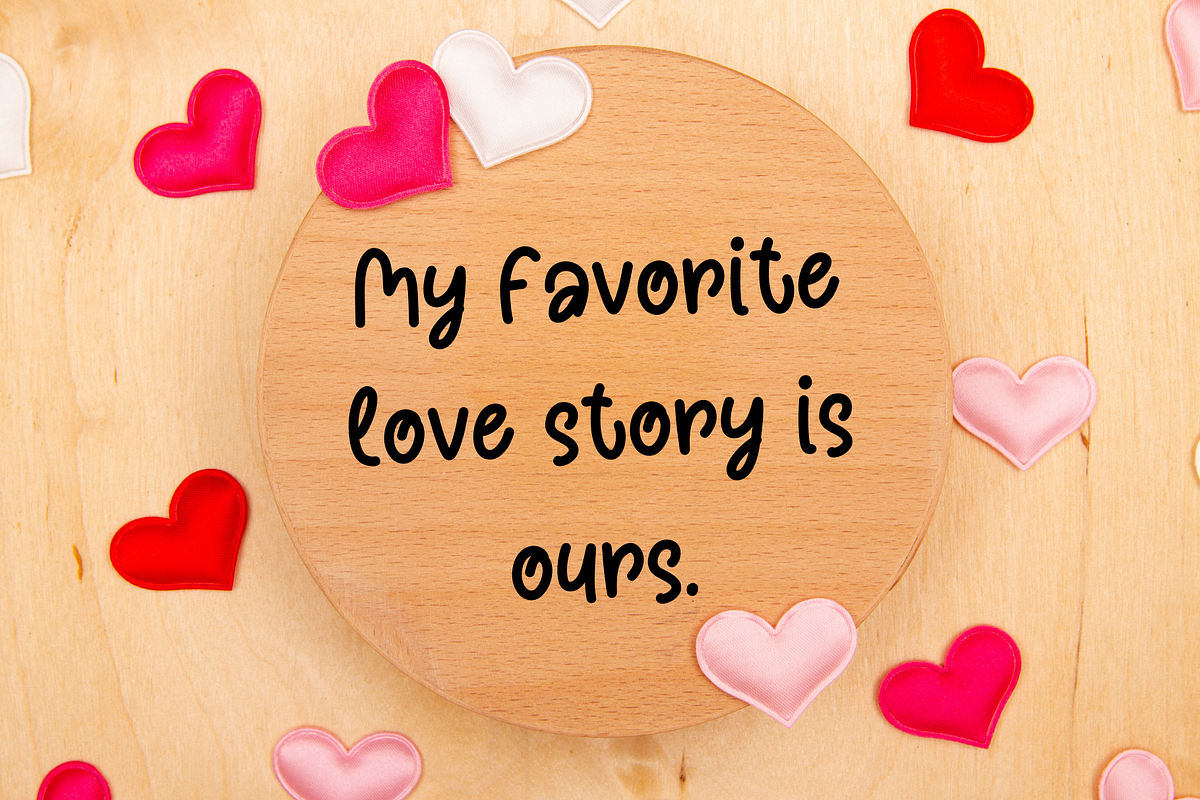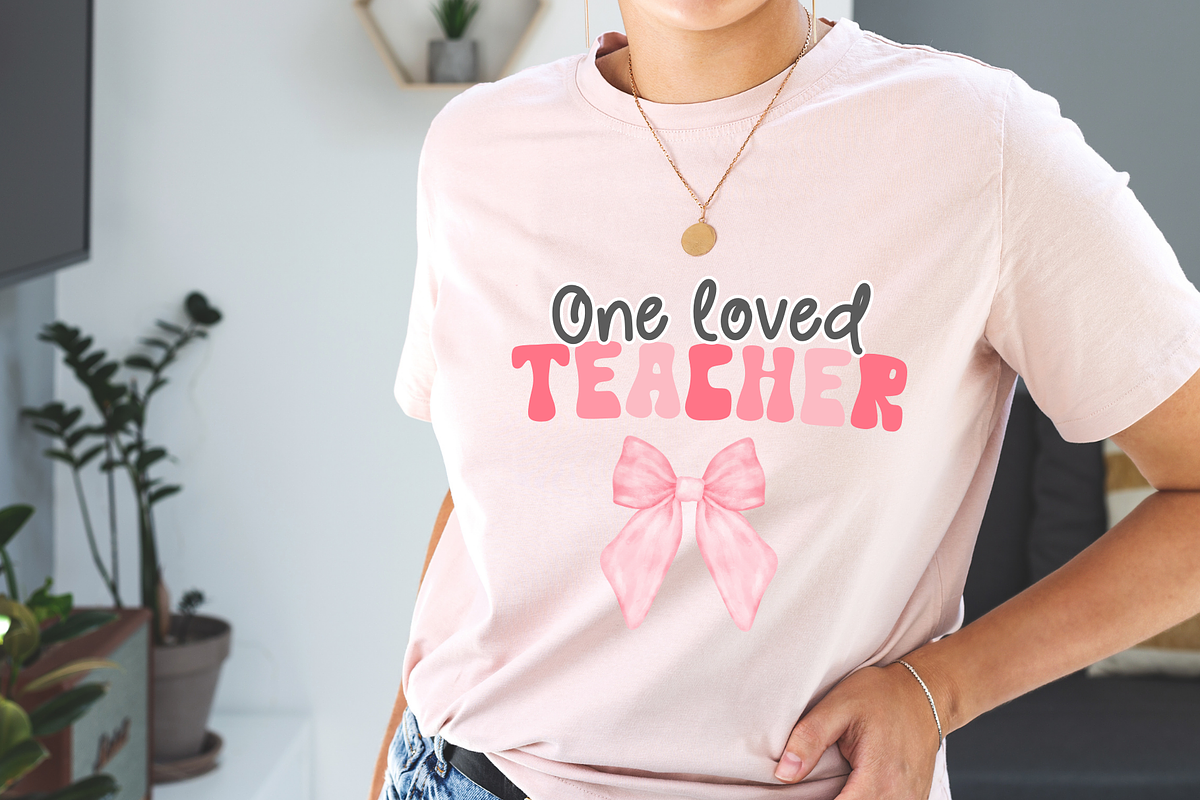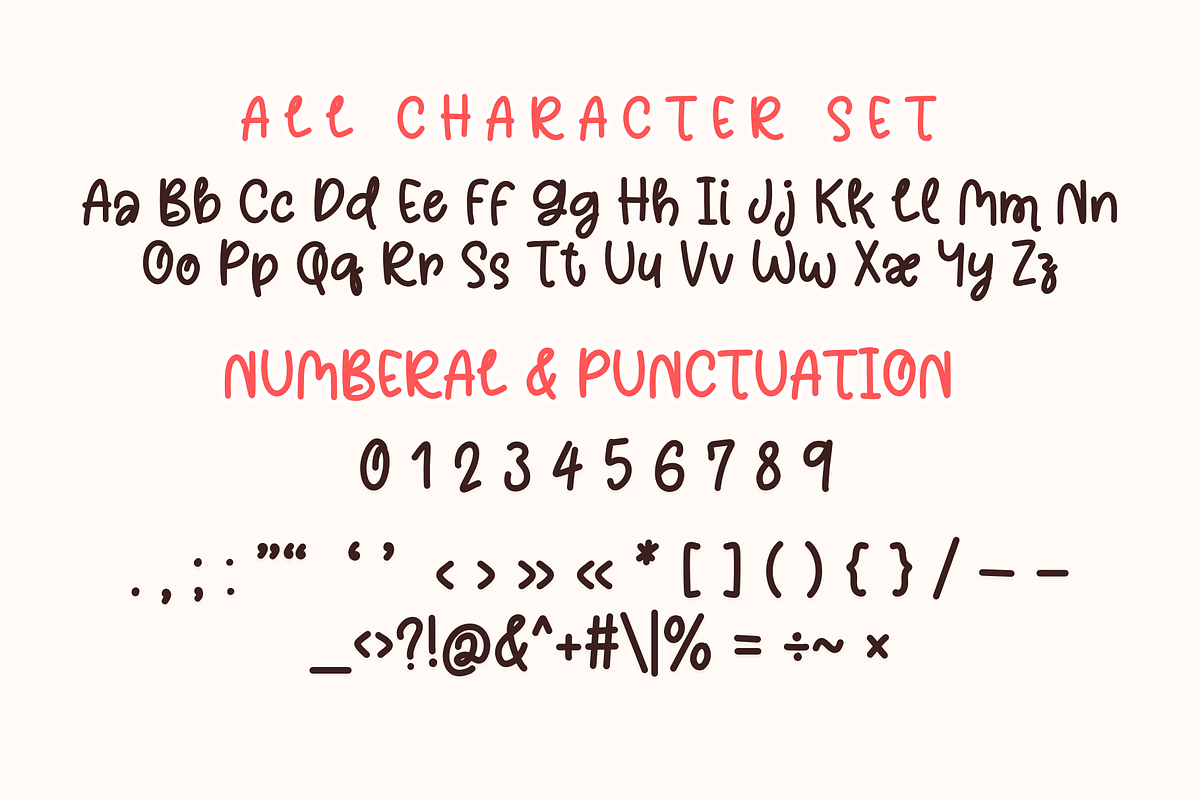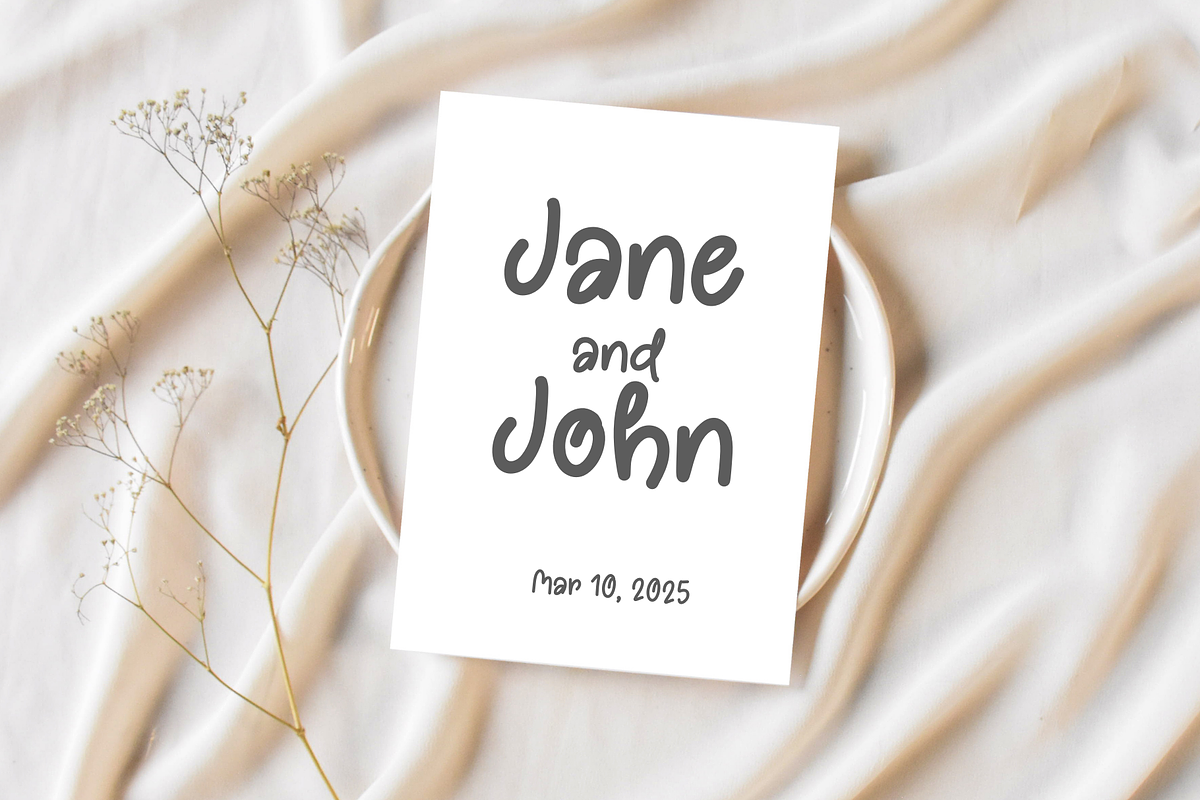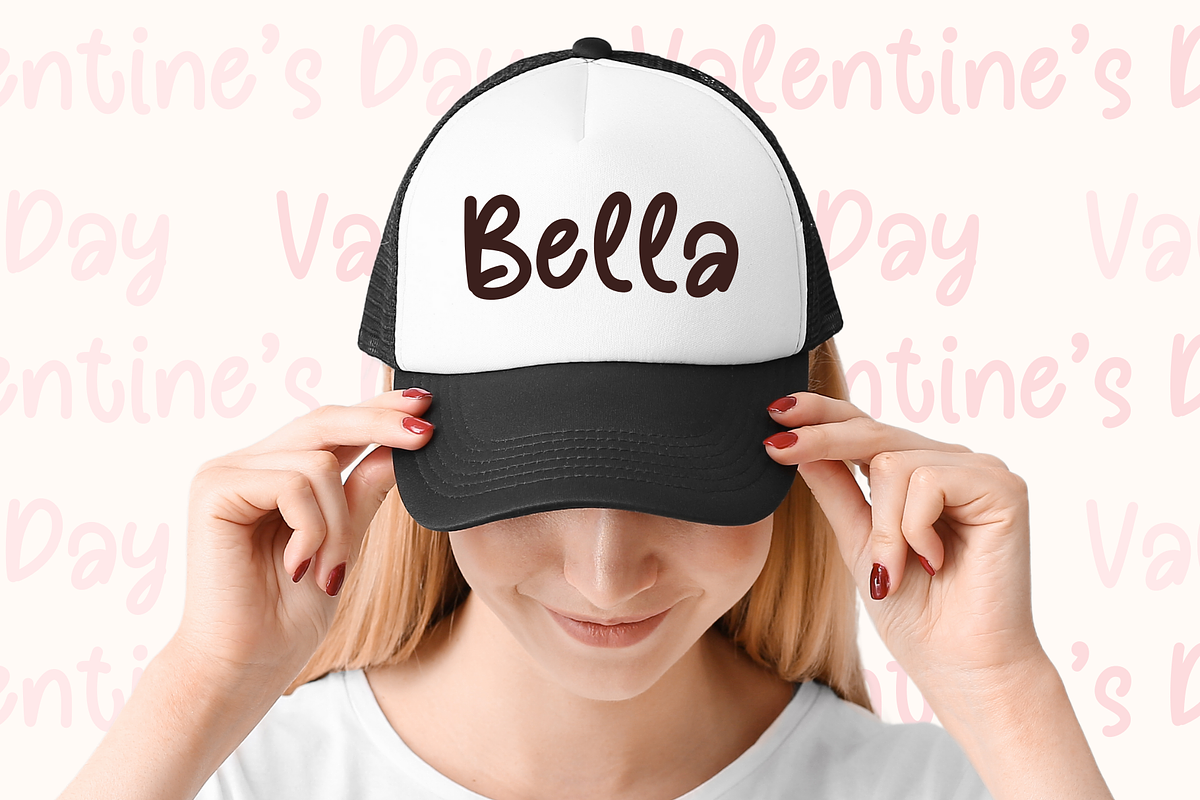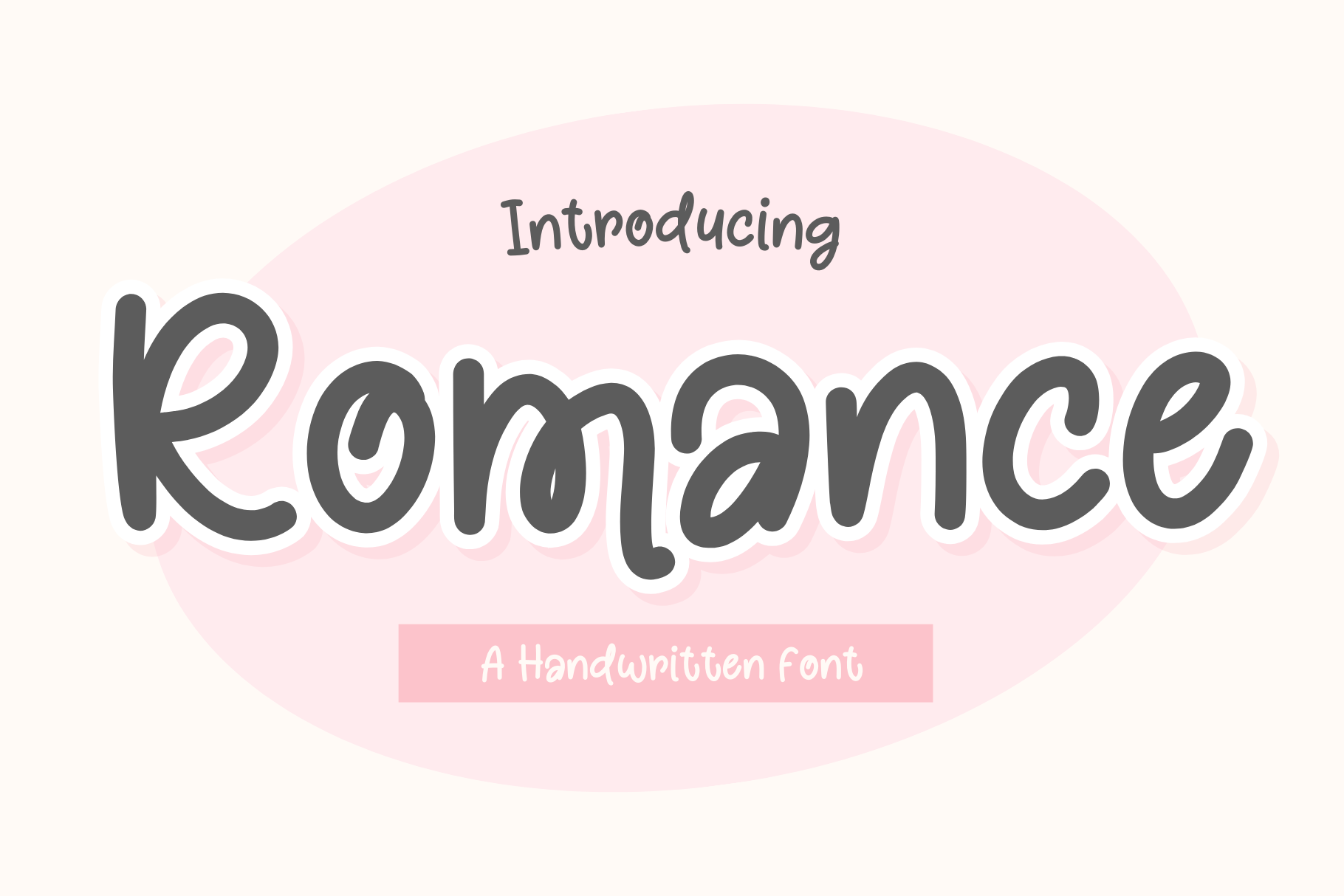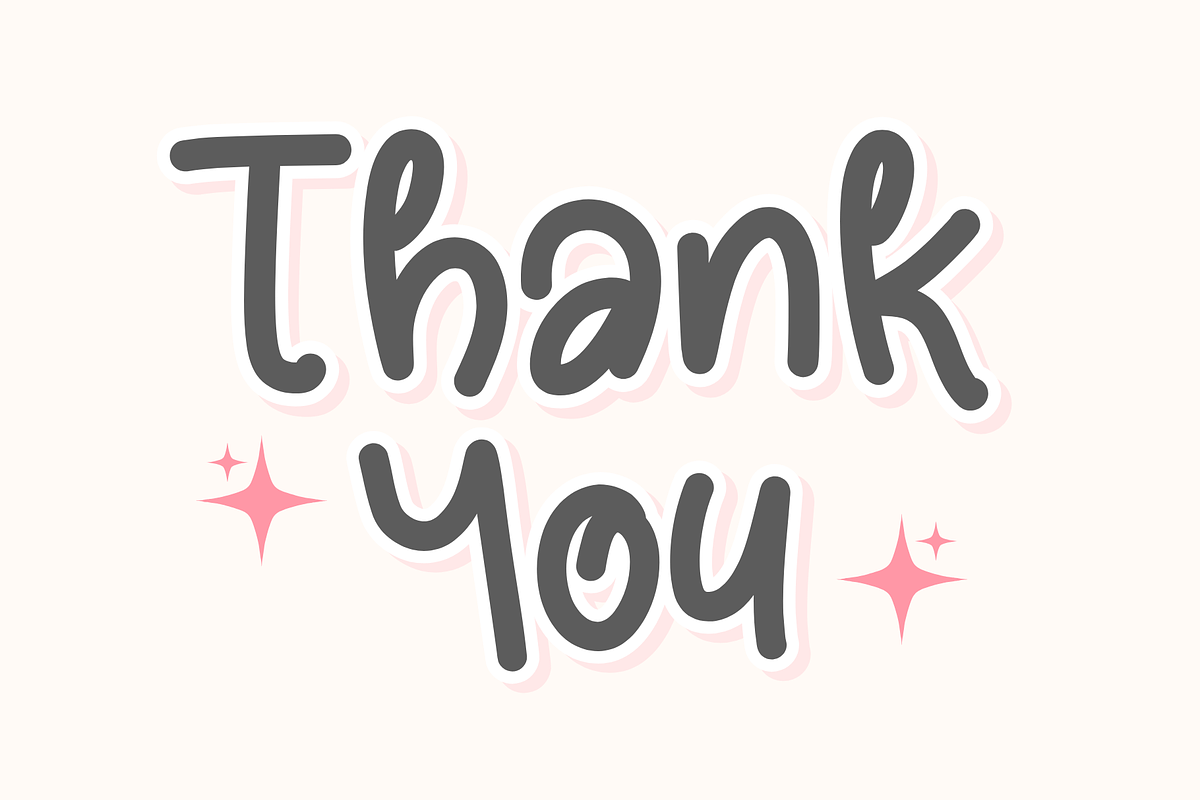
Romance is handwritten font
Romance is Valentine handwritten font. It embodies playfulness and authenticity and is the perfect choice for all your favorite projects, or even for blog posts, logos, branding, ads, invitations, greeting cards, planners, photo albums, decorations, and much more. Add it to any of your designs, and enjoy the results!